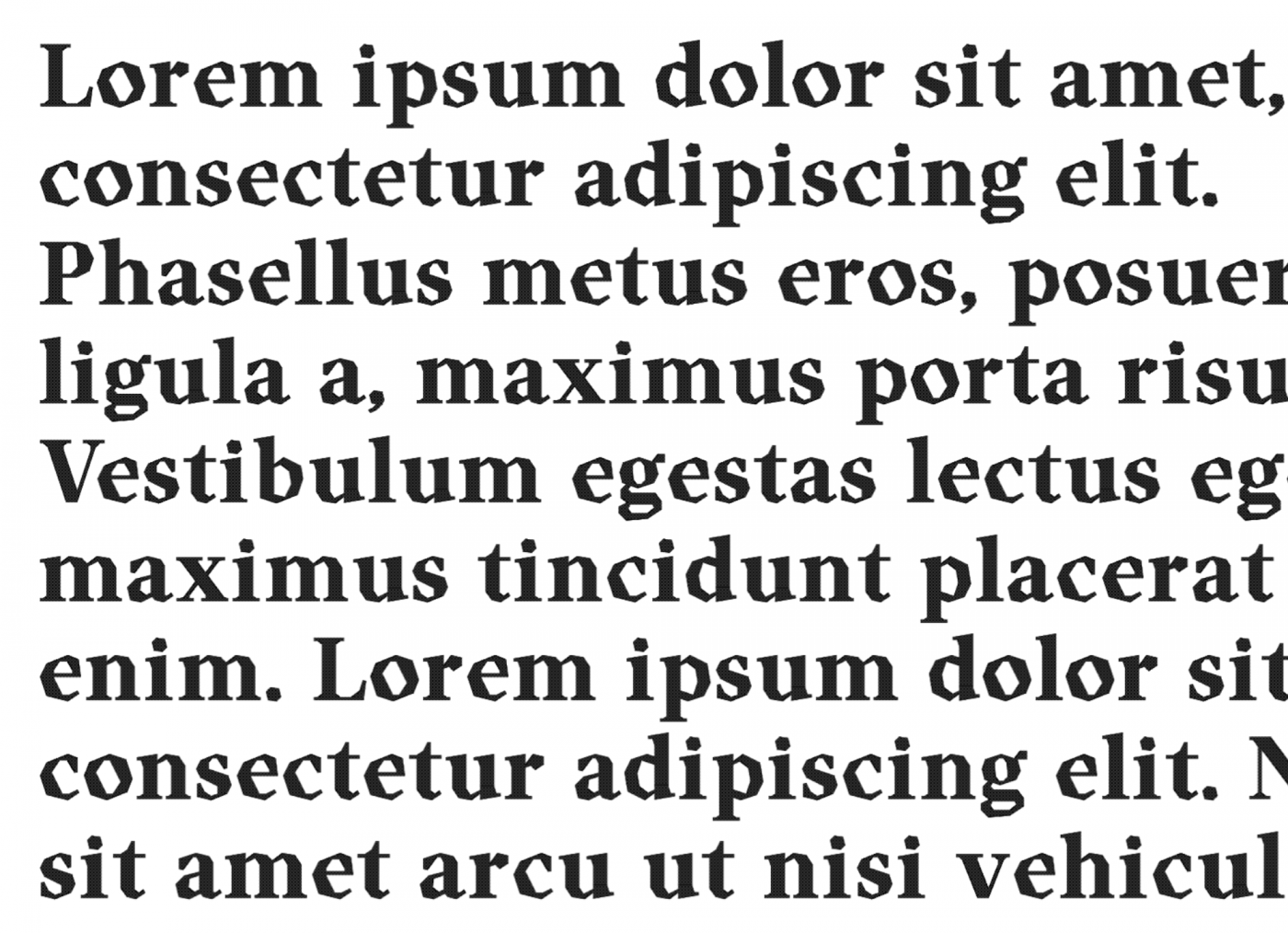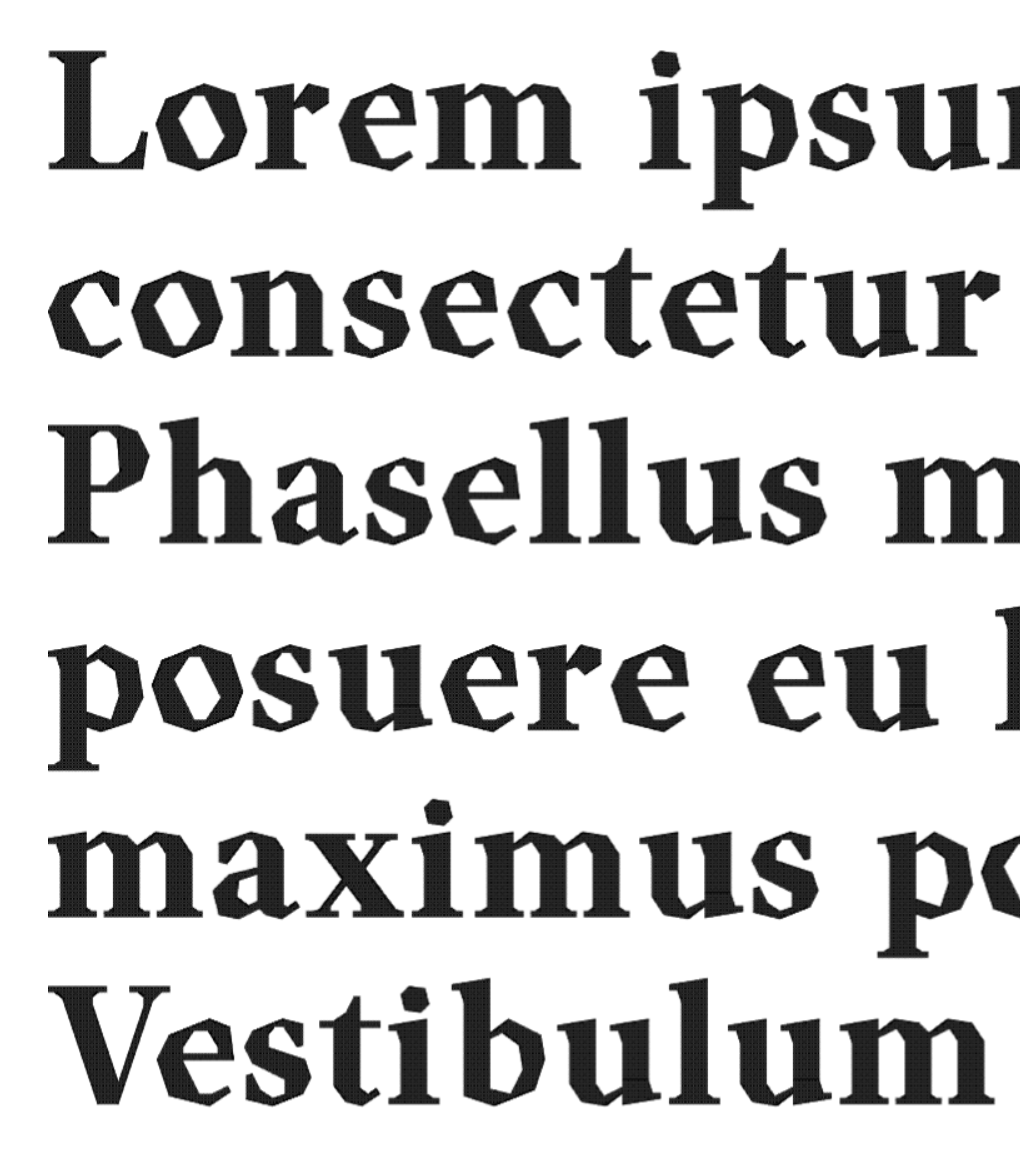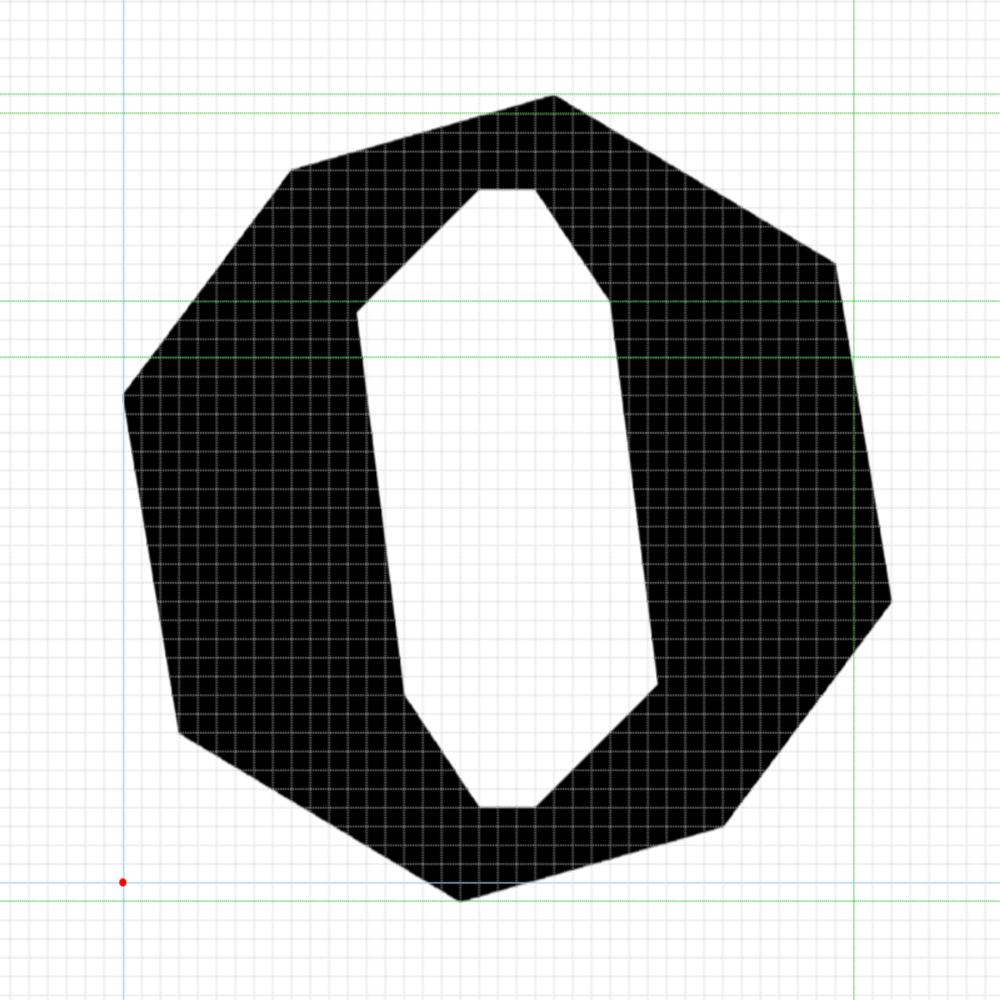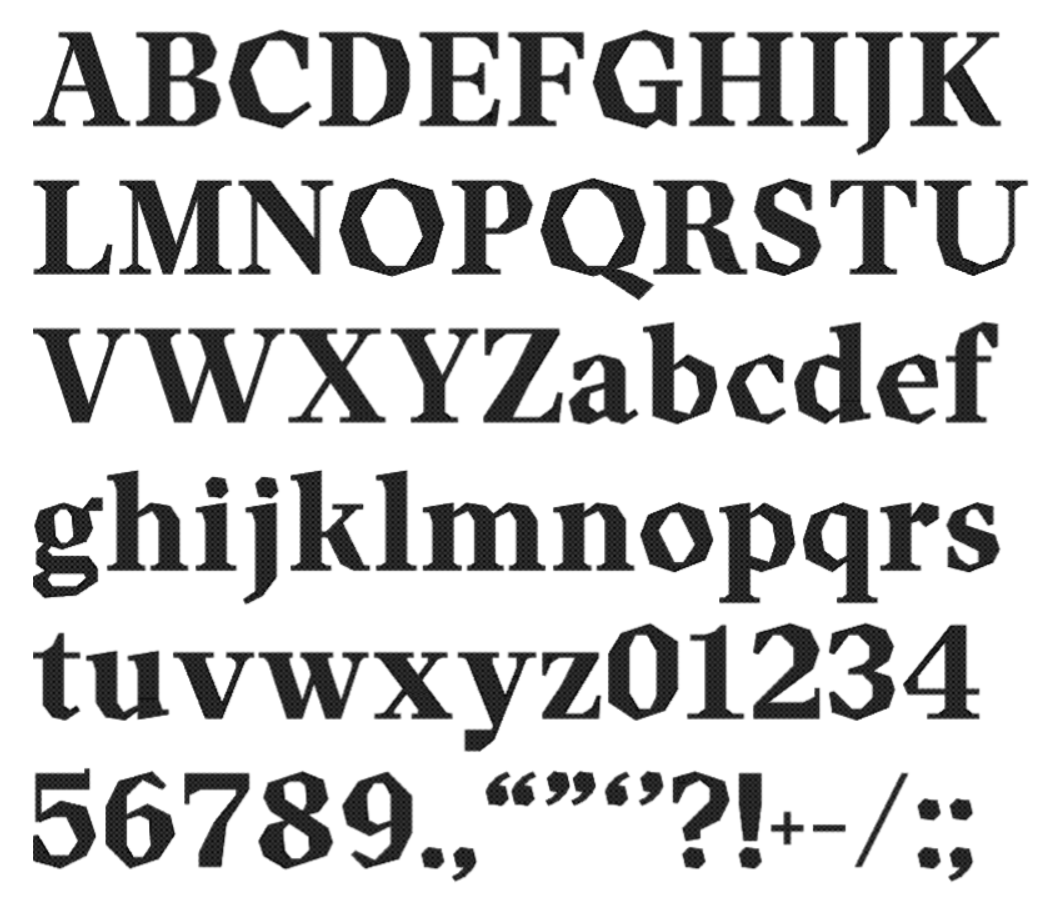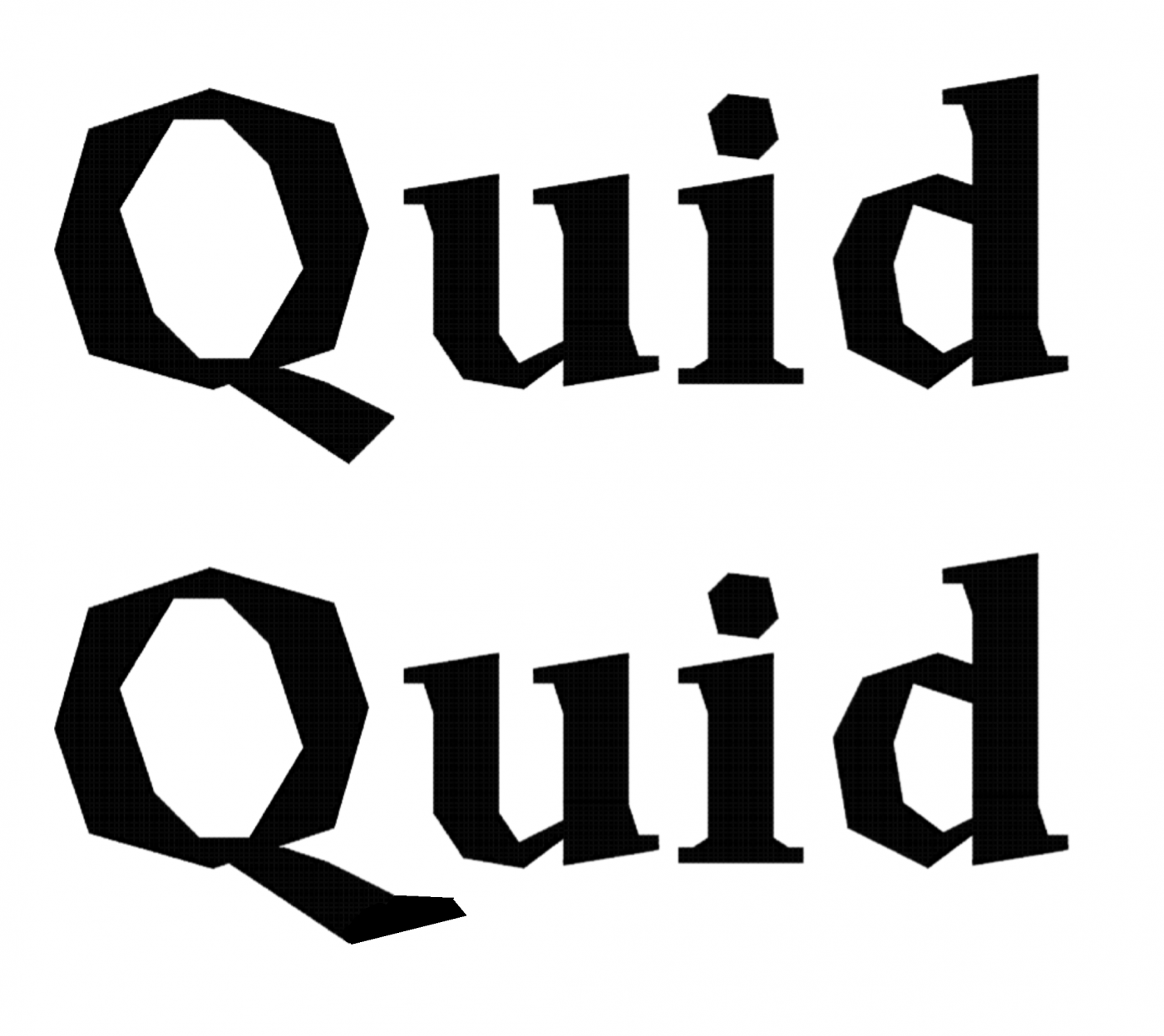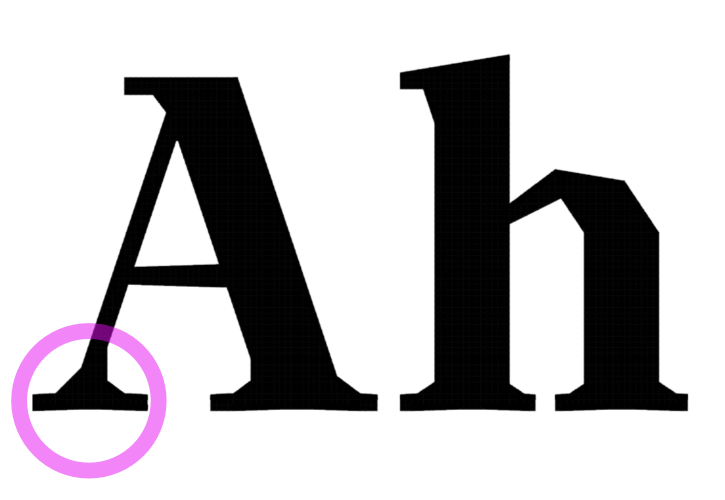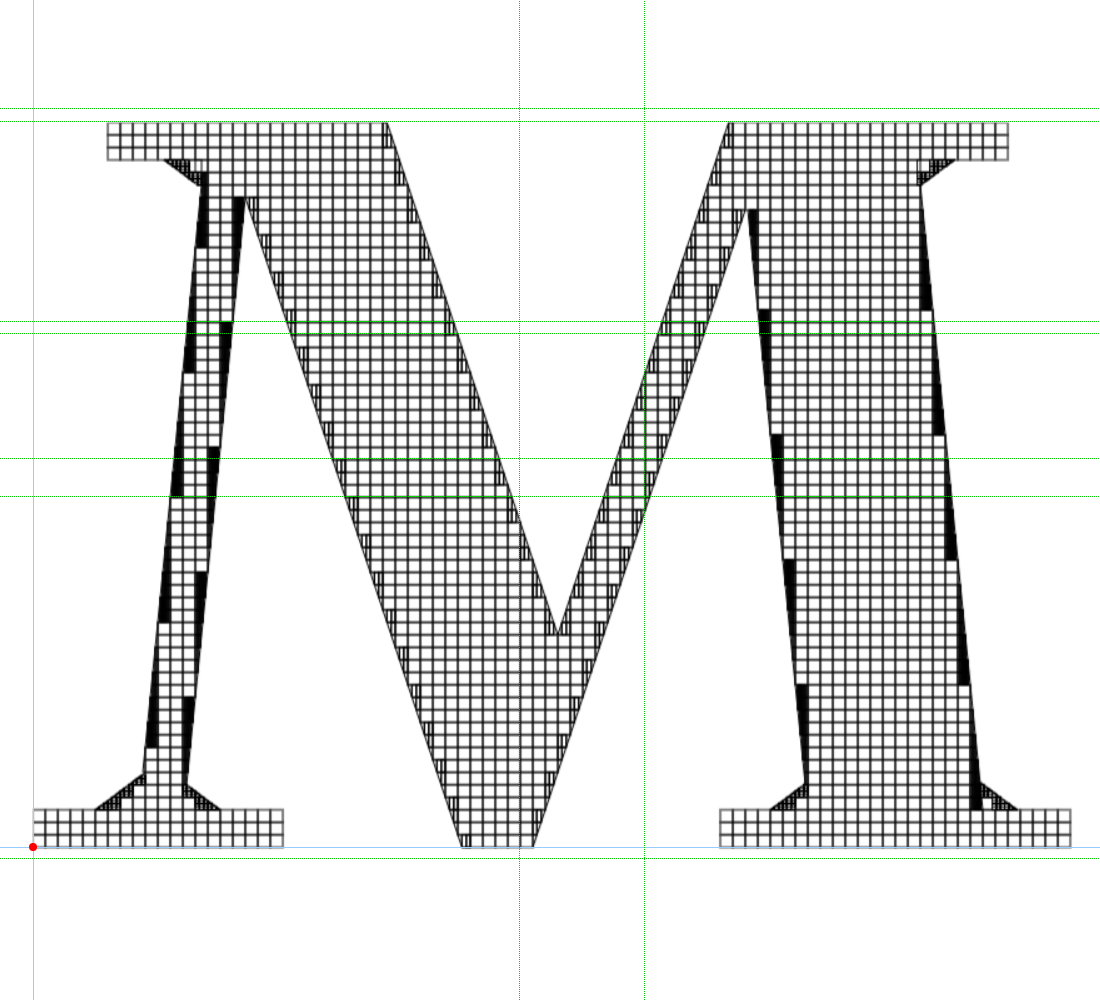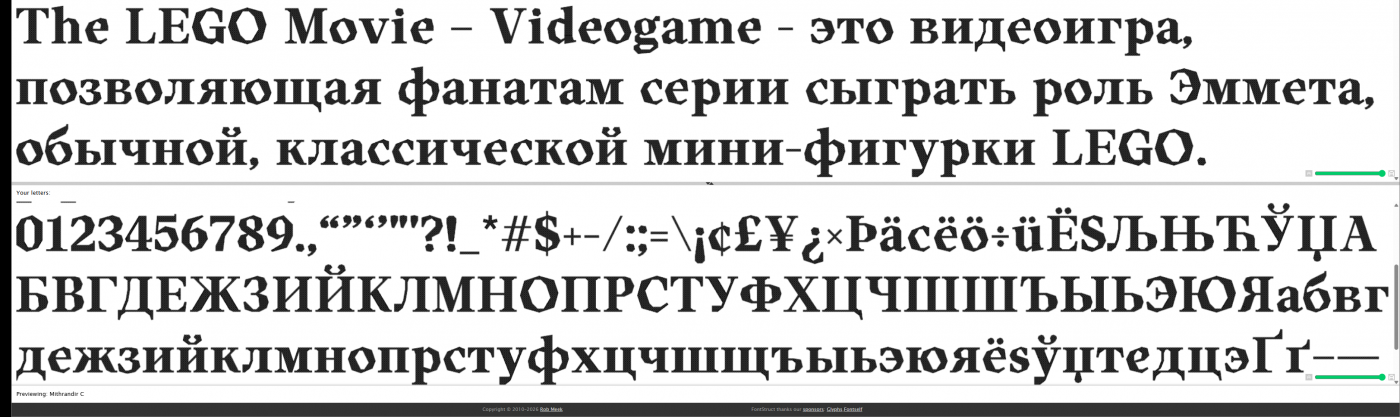
• Mithrandir is the Elvish name of Gandalf in The Lord of the Rings. It means Grey Pilgrim in Sindarin. Work in progress.
This is a project I started last year. A low-poly serif inspired by Vojtěch Preissig's beautiful typeface, Preissig Antiqua from the 1920s and similar contemporary works.
Very elegant type!
Pretty nice polygonal font. Hopefully the numerals arrive at some point in time.
This is how Mithrandir is written in Sindarin (handwritten in sample as it's not in Unicod as of writing this). Here is a (U)CSUR encoding:  (This should be five grapheme clusters in an ideal environment)
The angular nature of the font for the curved glyphs works quite nicely~
Very nice, looks like carved in wood or stone 10/10.
It's been a while since I've seen someone try to work with the editor rather than against it. (Then again, I haven't been around much as of late, so I probably missed something!)
The "sculpted" look you get by leaving visible vertexes is quite appealing, and feels almost fluid—in a way I can't describe.
Great job; I can't wait to see how this will evolve.
Text sample before kerning.
I don't know how to put it, but I'm not entirely convinced by the letters with large curves here (C, D, G, O, c, e, p, q...). I can understand that this might be the defining characteristic of the font, but it just doesn't quite work for me. I tried a similar approach to this kind of font without curves in my fontstruct zerena, and I remember the effort it took to make the uppercase and lowercase letters uniform. So, I can only wish my dear Maestro @Frodo7 all the luck, joy, daring, and productive work in this charming endeavor.
Rules are made to be broken.
I tried this decagonal polygon, which smooths the curves a bit. I don't know if it will be of any use to you, Maestro.
@Bryndan W. Meyerholt (BWM): I'm working on the numerals. First iterations will be ready by tomorrow. I know, the Tengwar script is not included in the official Unicode Standard. Does the ConScript Unicode Registry (CSUR) perform so poorly?
@Peter (Petruuccio): To me, these rough strokes look like linocut.
@Gr4ftY (groan): Your words resonate with my design intentions (if I understand you correctly). FontStruct was made for this sort of low-poly letterforms. Instead of chasing the perfect curves - a futile endeavour, in my opinion - let's embrace the faceted geometric shapes.
@elmoyenique: Thank you for your comments and helpful contributions. I always valued your opinion and considered it seriously. Type design is a subjective matter; we don't have to agree on everything. I quite like how the "curved" letters C, G, O, Q, c, e, o, etc., turned out. I asked ChatGPT for a short review of this new alphabet, uploaded a fairly large picture, and it gave me a detailed analysis with bullet points. The first thing it mentioned was the following: "the C, G, O, Q: beautifully constructed — convincing polygonal rounds". Does AI opinion matter? I believe it does. Do I always accept it? No. The funny thing about AI is that it's so human-like, it can make mistakes as we do.
Your font Zerena is a decent work. However, it is more orderly and symmetrical.
Nobody commented on the Preissig reference. Interesting.
@elmoyenique: My lowercase o is way bigger. Its design is airtight: one brick overshoots at the top and bottom, no wobbly bricks or misaligned corners. The axis (connecting the top and bottom peaks) is leaning forward slightly, whereas the thick vertical strokes are leaning back just as much. That gives the letter a dynamic, almost restless appearance. Your polygonal design is beautiful. It may be useful for smaller things, like the degree sign or the per cent sign. Incidentally, it is similar to Ortica Bold.
What is wrong with you, people?
Given FontStruct's advanced features and the plethora of shared resources (custom bricks, circles, slopes, and tutorials), I wonder why we don't see more complex and sophisticated designs? There is a pointless race to build fonts with a record number of glyphs and repeating the same rudimentary designs again and again. (Respect to the few exceptions.) Why don't you take advantage of this free online font creator tool and build something useful? Why don't you evolve, learn new tricks, and develop new patterns? What is wrong with you, people?
I want schaa
*schwa
Make Ə and Ğ and Ç and İ and Ö and Ü
Nice.